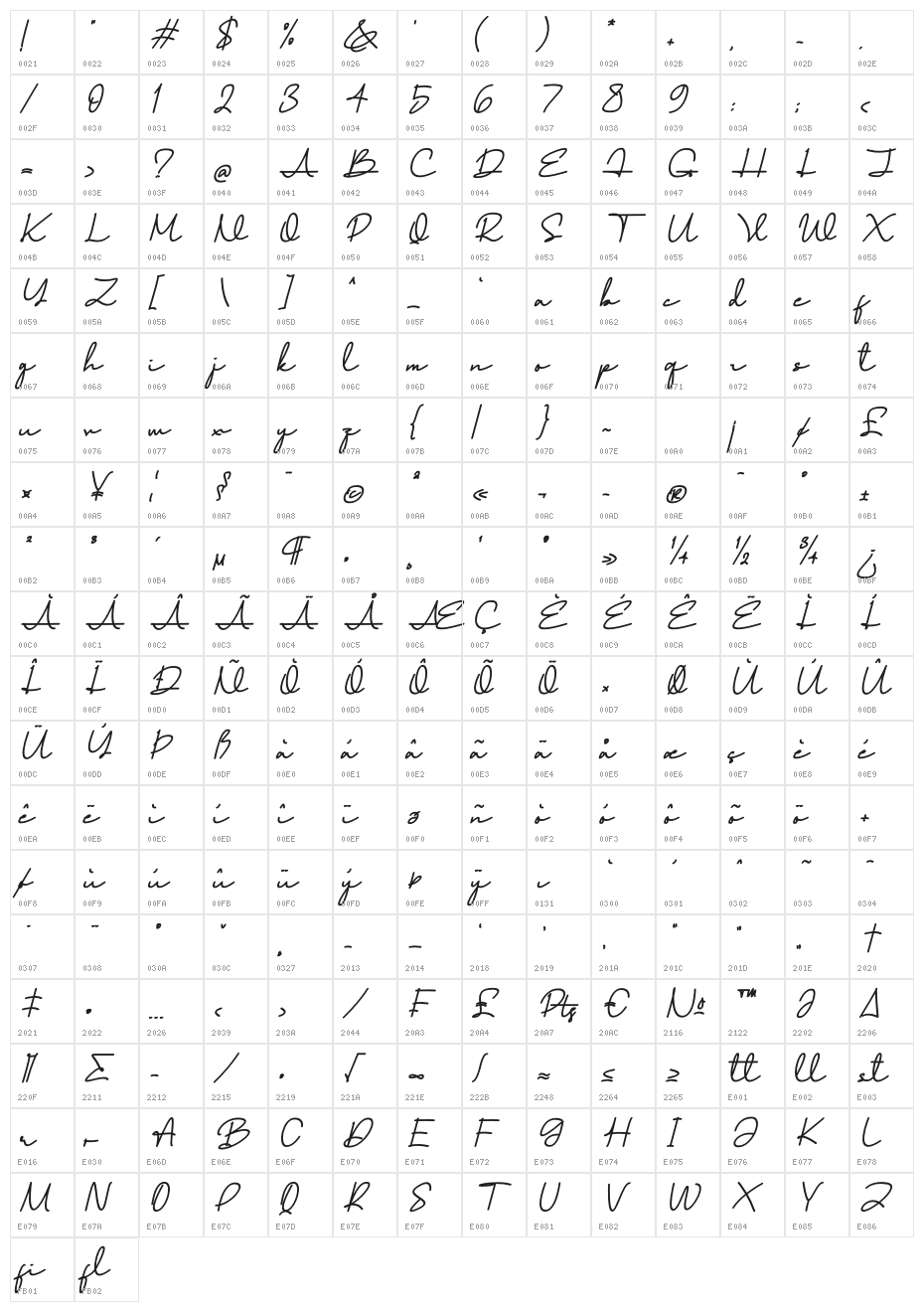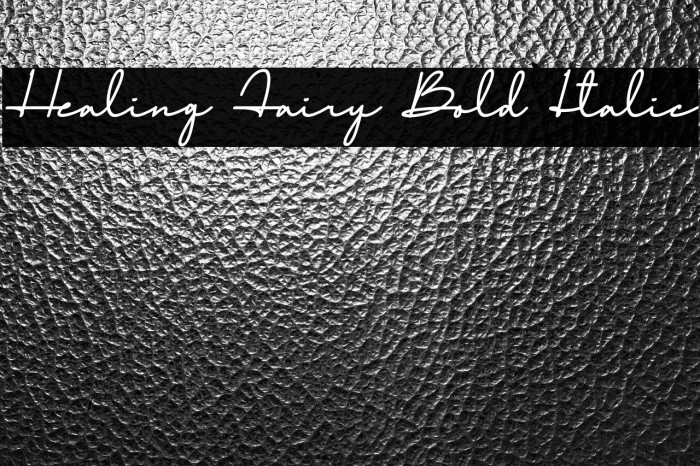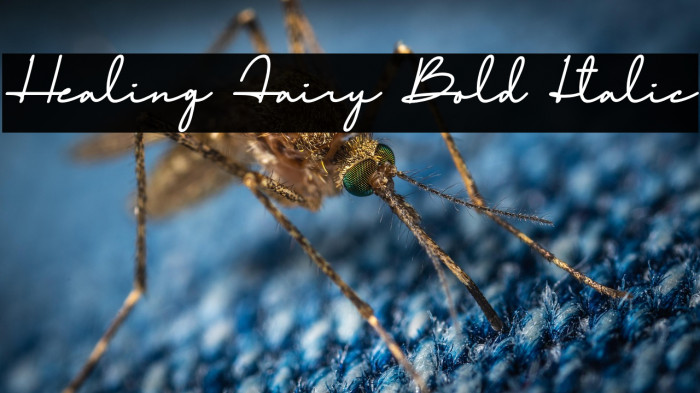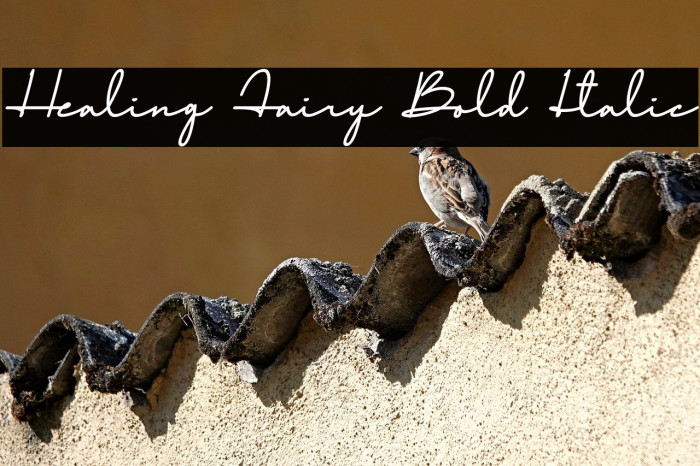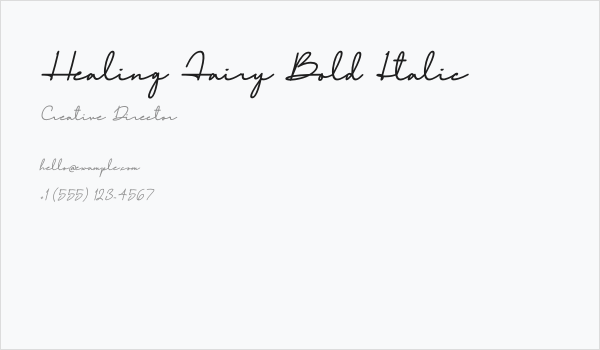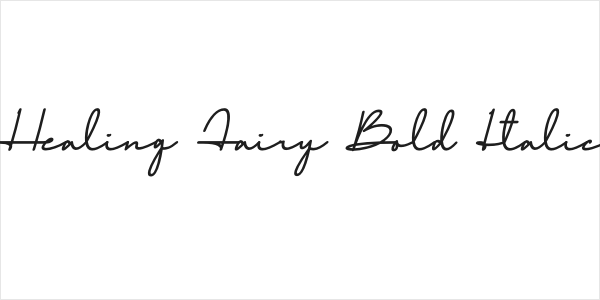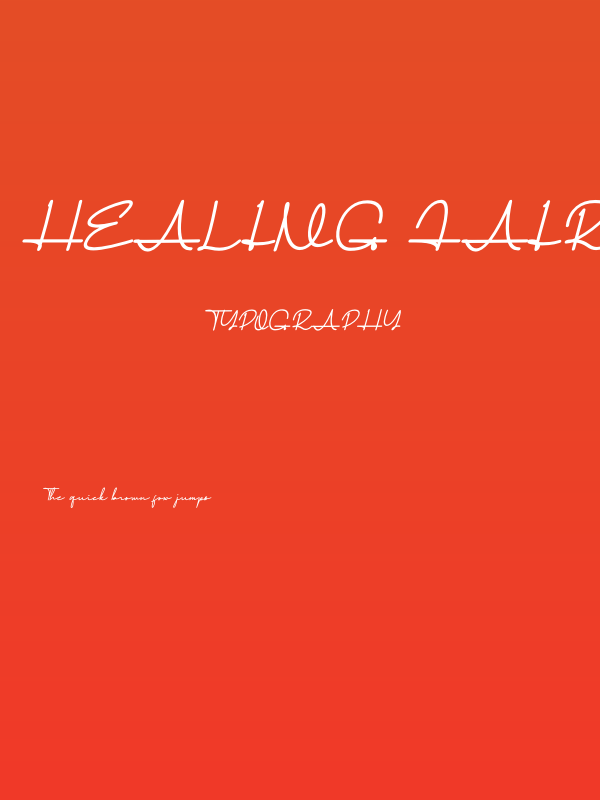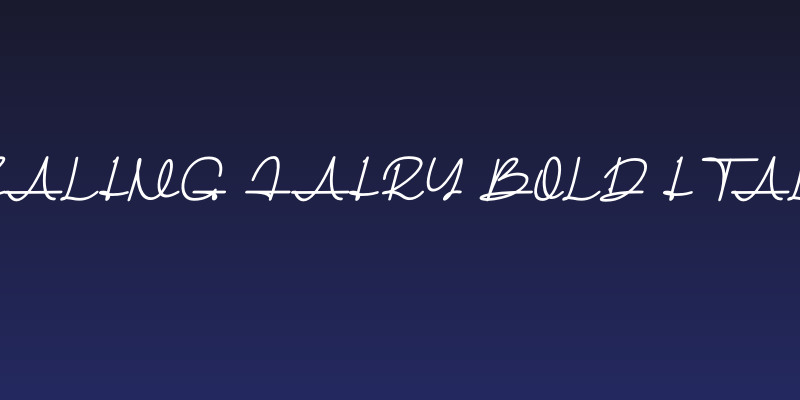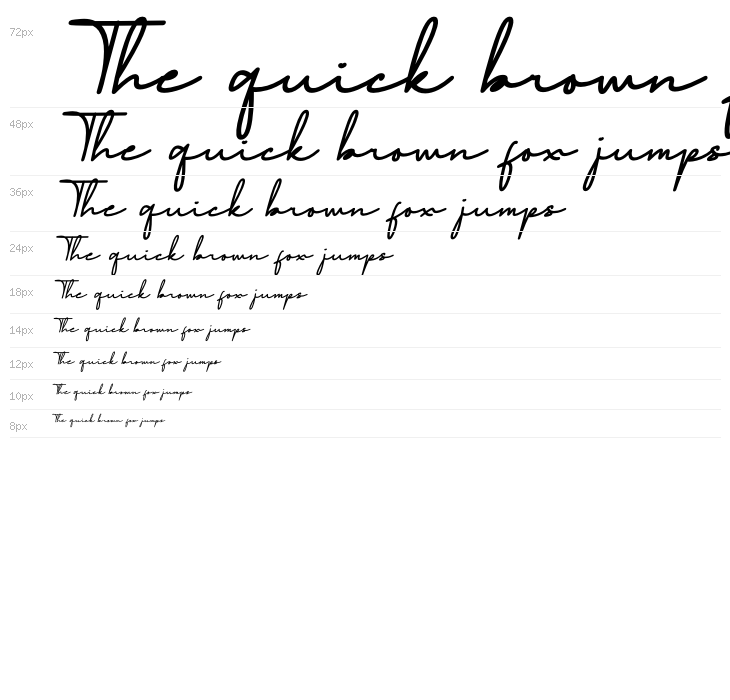
Healing Fairy Bold Italic Font
Healing Fairy Bold Italic Description
A flowing, cursive script font with a handwritten appearance, featuring connected letterforms and a consistent slant to the right. The strokes are smooth and moderately thick, giving a bold yet elegant look. The characters have a playful, informal style with high ascenders and deep descenders, and the numerals and punctuation match the script's fluidity.
| Overall Style | Handwritten, Decorative, Modern |
| Use Case | Logos, Headlines, Invitations, Social media posts |
| Proposed Projects | Greeting cards, invitations, personal branding, quotes, social media graphics. |